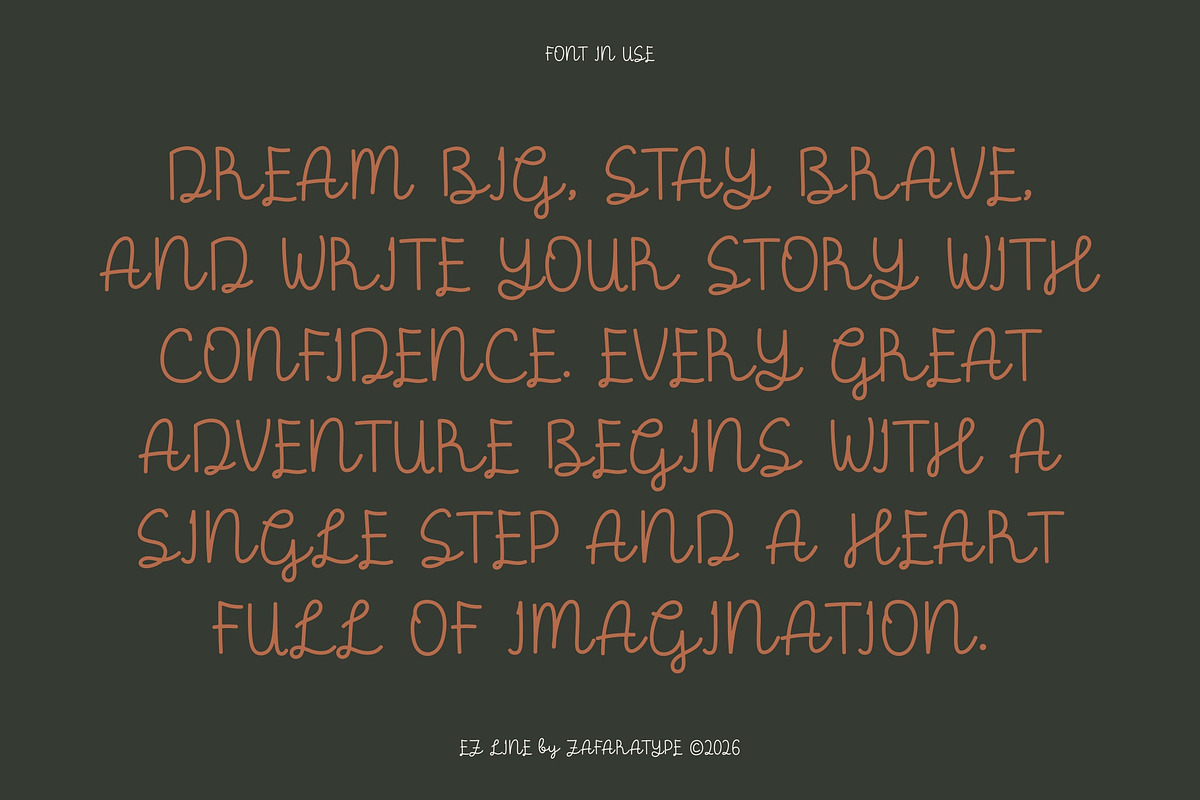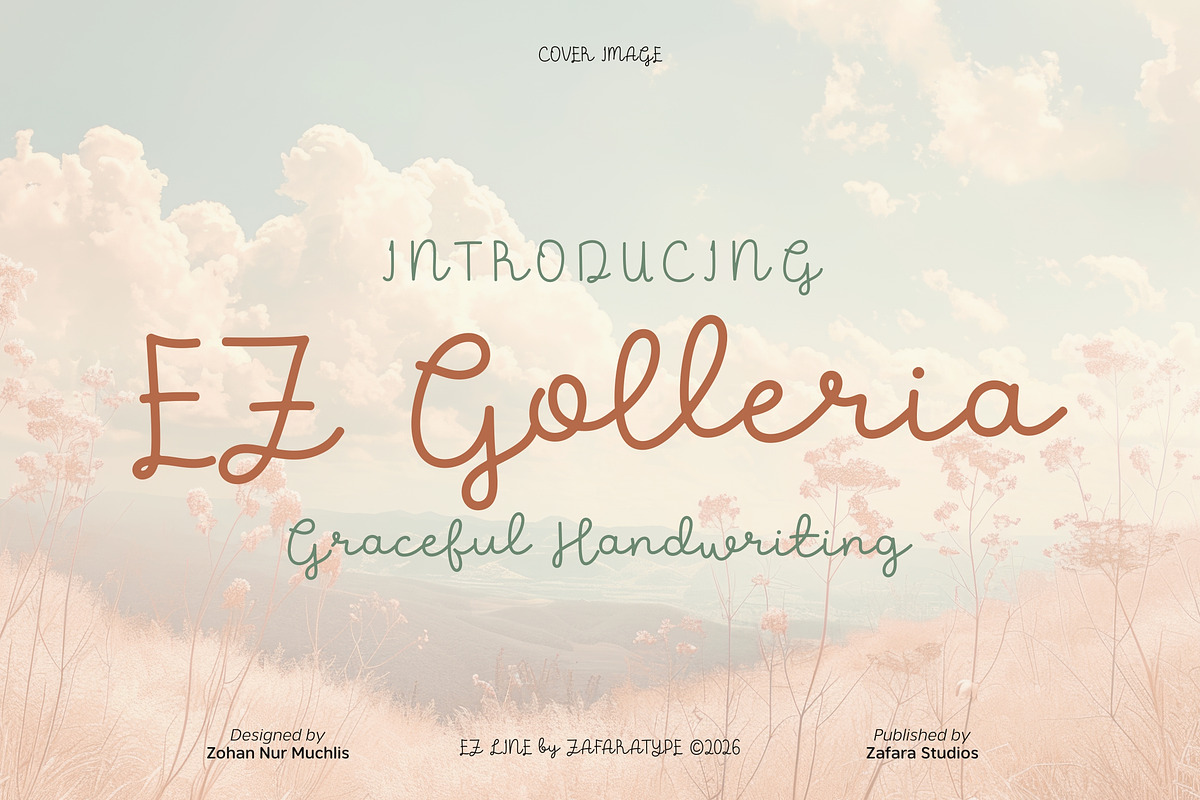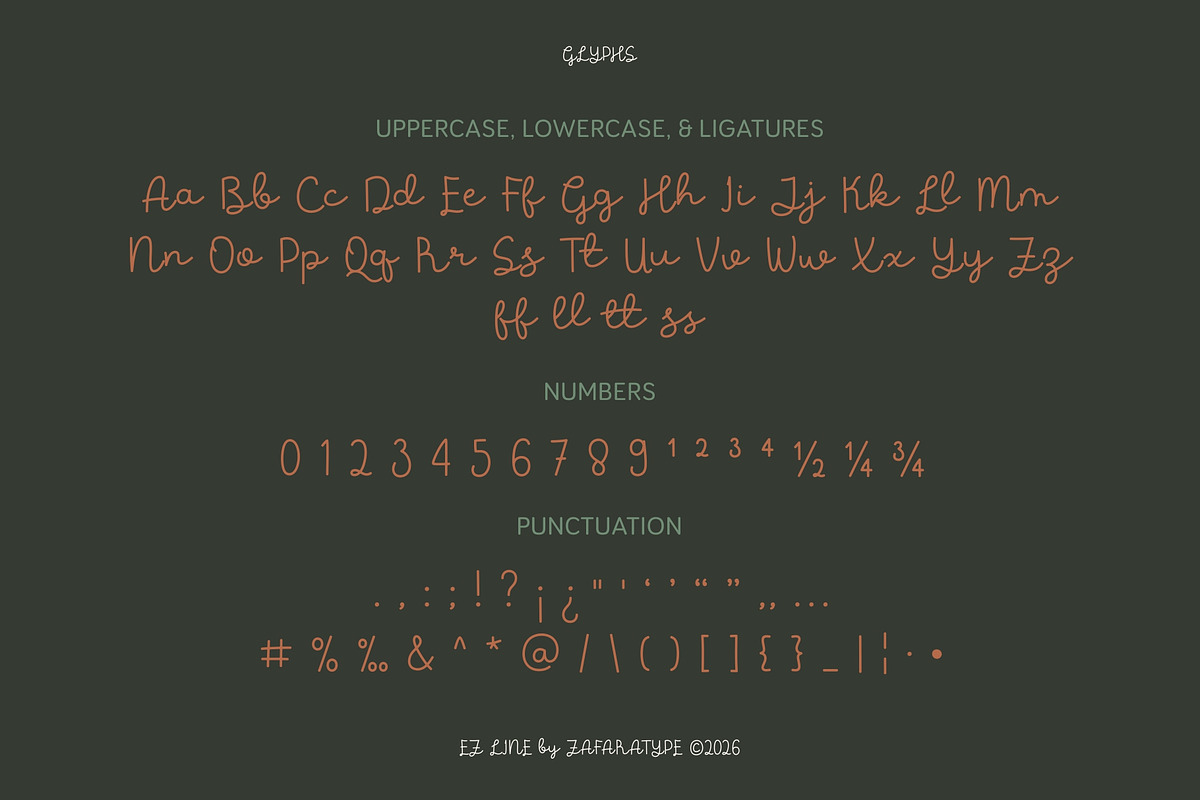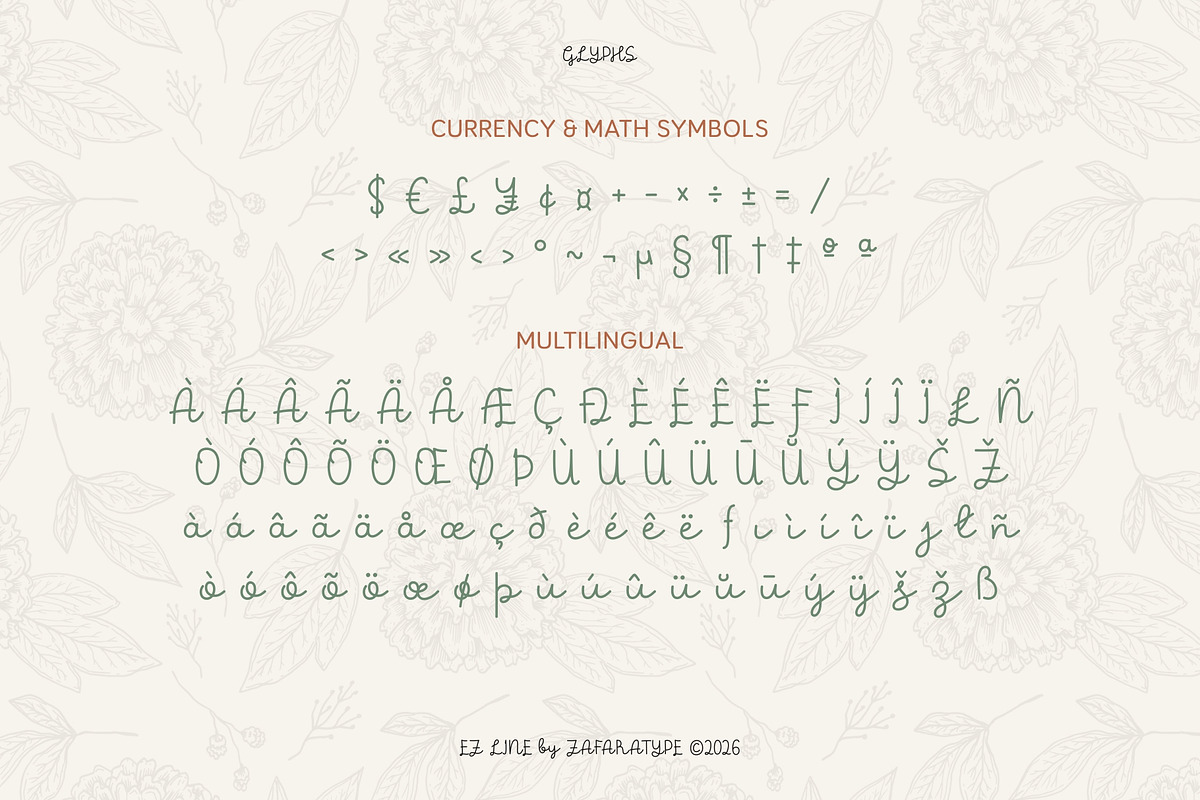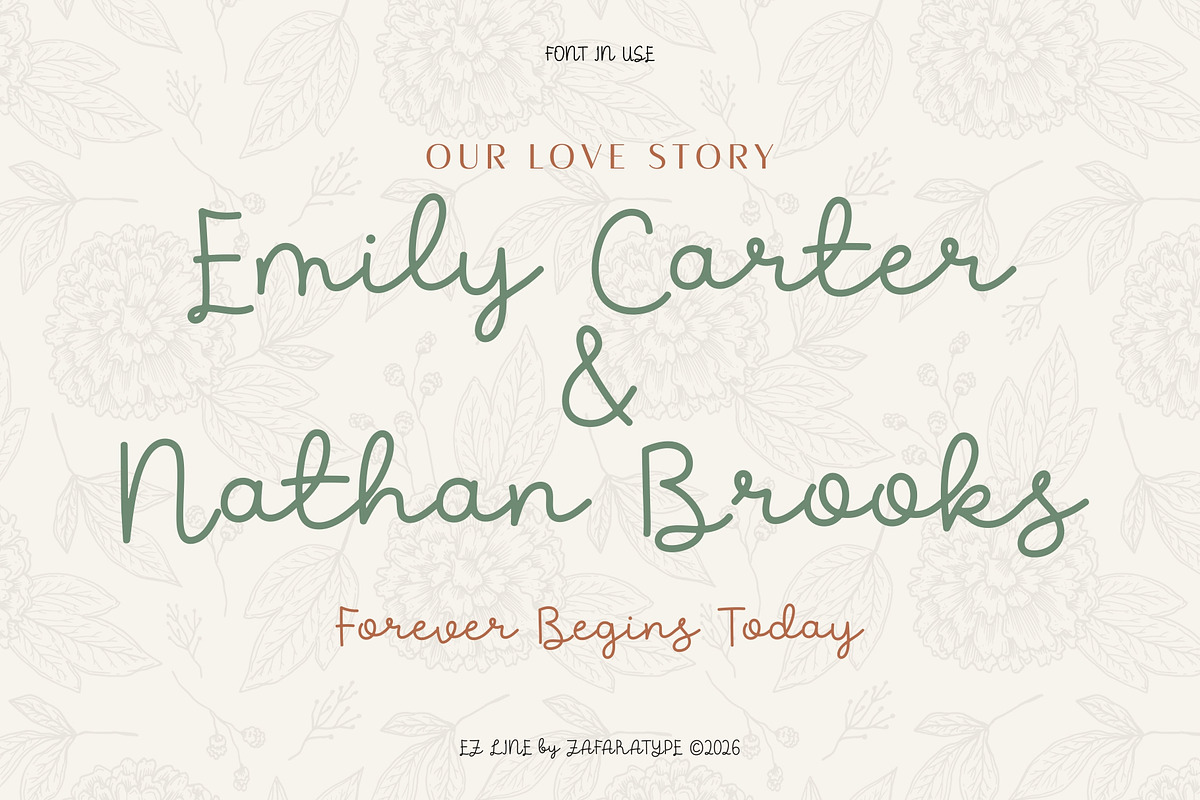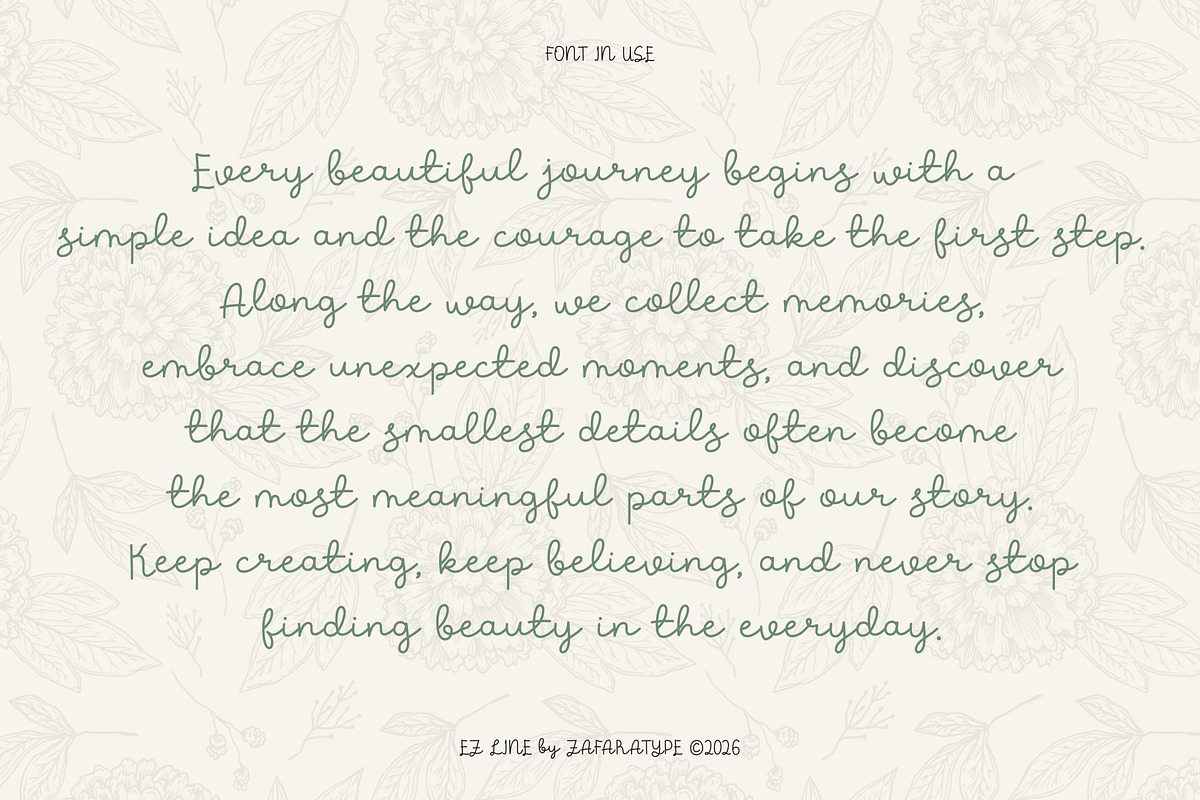
EZ Golleria
EZ Golleria is a cheerful and expressive handwritten script that blends playful personality with graceful simplicity. Featuring an upright style, smooth curves, and naturally flowing strokes, it brings a fresh and inviting feel while remaining clean, balanced, and easy to read.
Designed to capture the warmth of genuine handwriting, EZ Golleria is perfect for branding, packaging, greeting cards, children's projects, social media, invitations, quotes, and creative stationery. Whether you're creating something joyful, heartfelt, or modern, it adds a friendly and authentic touch to every design.
The details:
247 glyphs: Uppercase, lowercase, ligatures, numbers & punctuation, symbols & accents, multilingual support
25 languages: Afrikaans, Albanian, Basque, Catalan, Danish, Dutch, English, Estonian, Faroese, Filipino, Finnish, French, Galician, German, Icelandic, Indonesian, Irish, Italian, Malay, Norwegian Bokmål, Portuguese, Spanish, Swahili, Swedish, Zulu